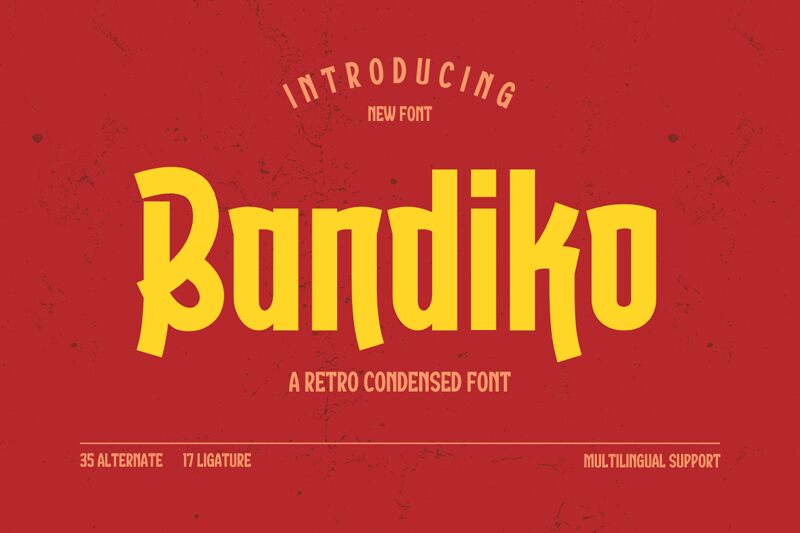
Bandiko, a captivating display font crafted by Twinletter, radiates a vintage charm with its bold, condensed letterforms. This retro-inspired design exudes a sense of nostalgia, blending classic aesthetics with a modern edge. The font's striking contrast and angular terminals lend it a dynamic, assertive presence, making it an eye-catching choice for a variety of design applications.
Bandiko's versatility shines through its ability to command attention in headlines, logos, and branding elements. Its condensed width allows for impactful text compositions, making it a compelling option for posters, book covers, and packaging designs that demand a strong, memorable visual impact. The font's retro flair also lends itself well to projects seeking to evoke a vintage or retro-inspired aesthetic, such as t-shirt designs, album covers, and advertising campaigns.